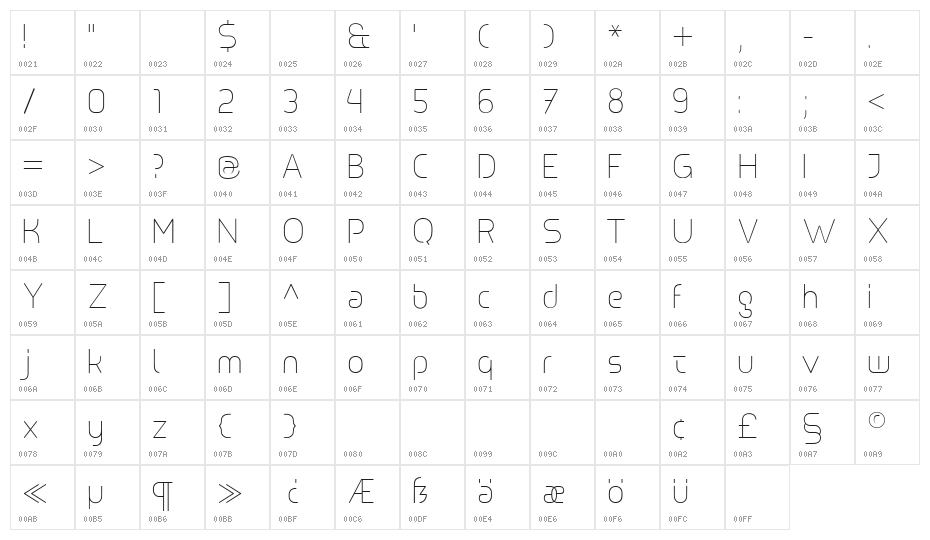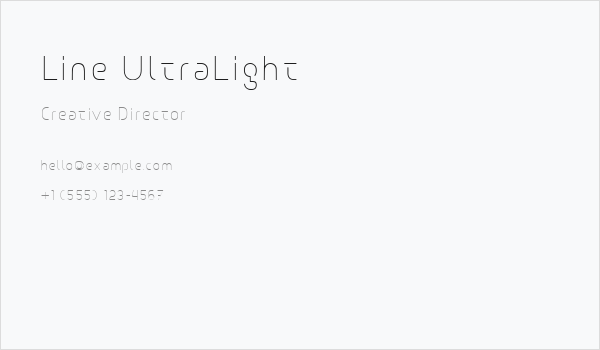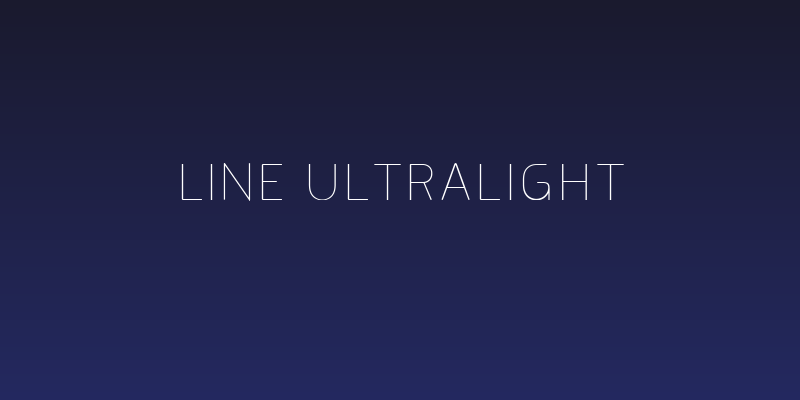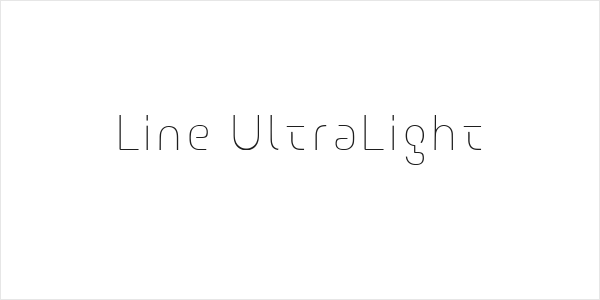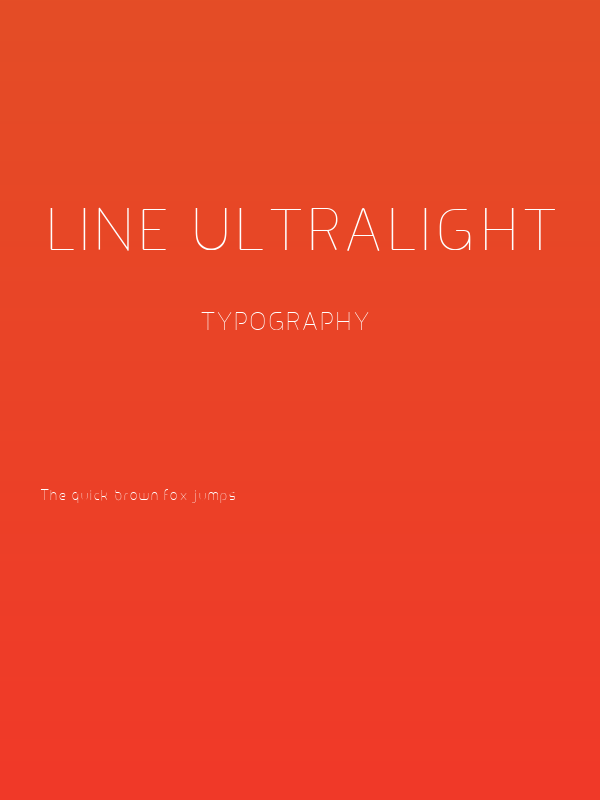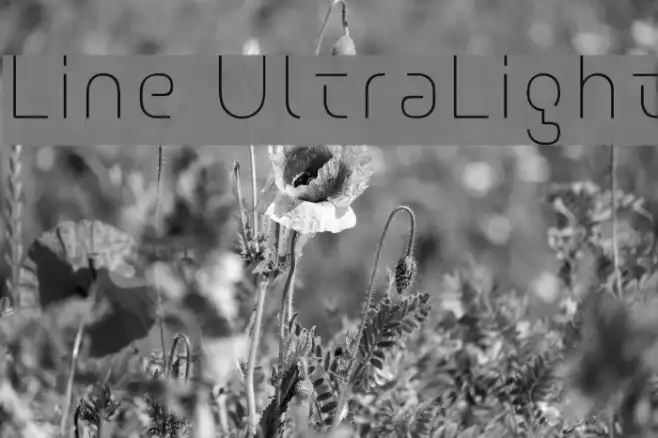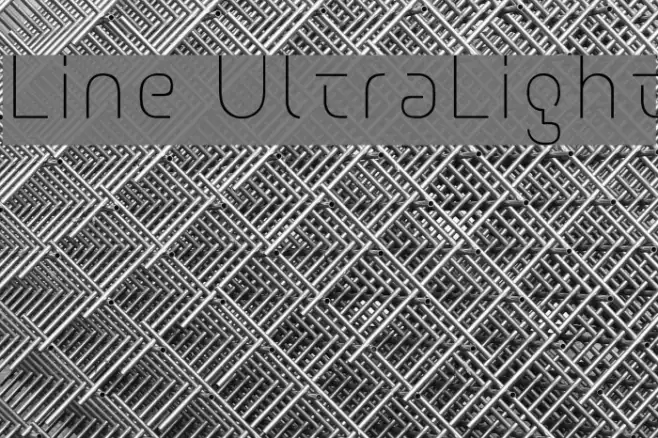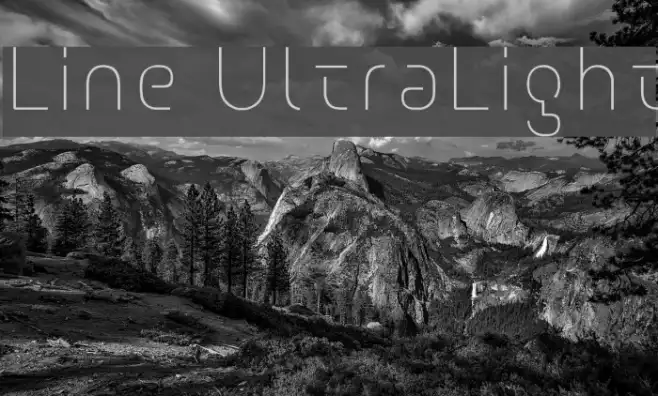
Line UltraLight Font
Line UltraLight Description
This font features a sleek, ultra-light design with a modern aesthetic. The characters are clean and minimalistic, with a geometric influence that gives them a futuristic feel. The uppercase letters are uniform in height, while the lowercase letters maintain a consistent baseline with subtle variations in ascenders and descenders. The numerals are proportionate and align well with the overall style, offering a seamless integration with the alphabet. Special characters are elegantly crafted, maintaining the font's minimalist approach. This font is ideal for projects that require a contemporary and sophisticated look.
| Use Case | Headlines, Logos, Web design |
| Proposed Projects | Ideal for tech branding, modern web design, minimalist posters, and sleek product packaging. |